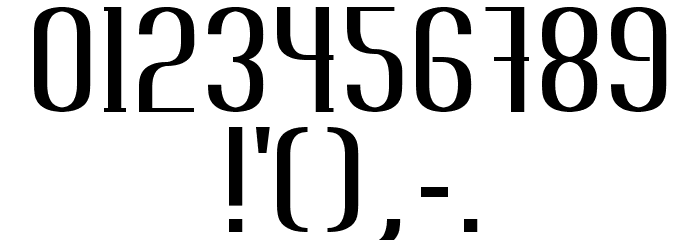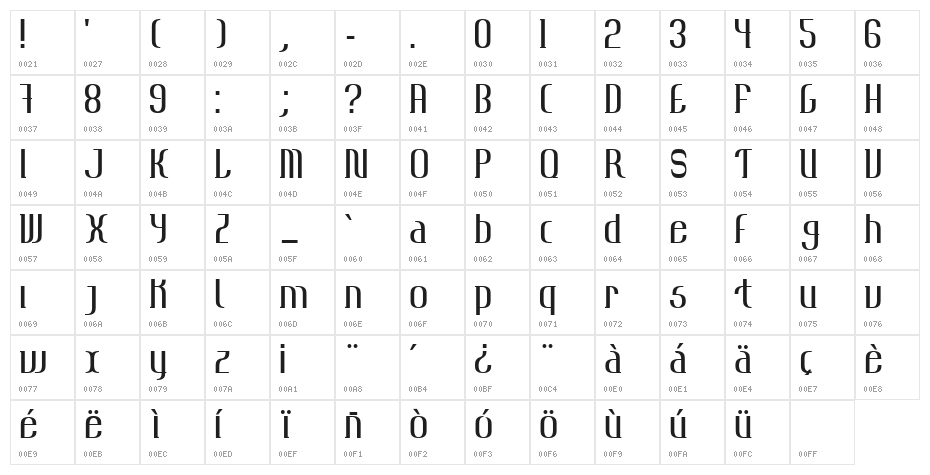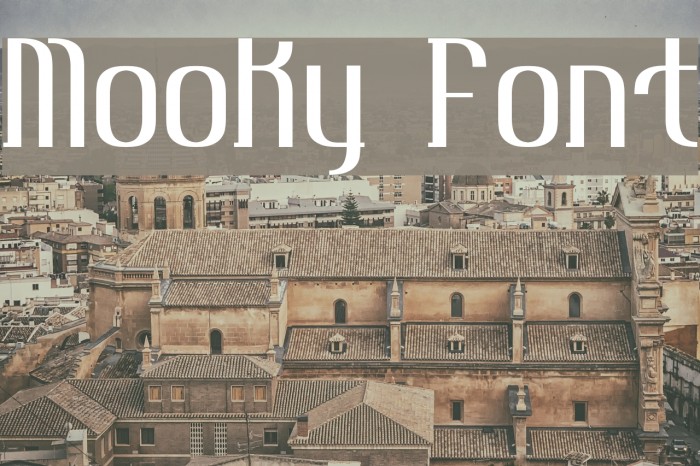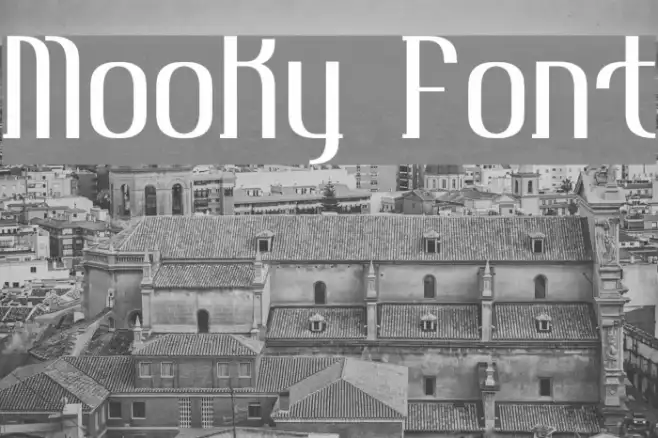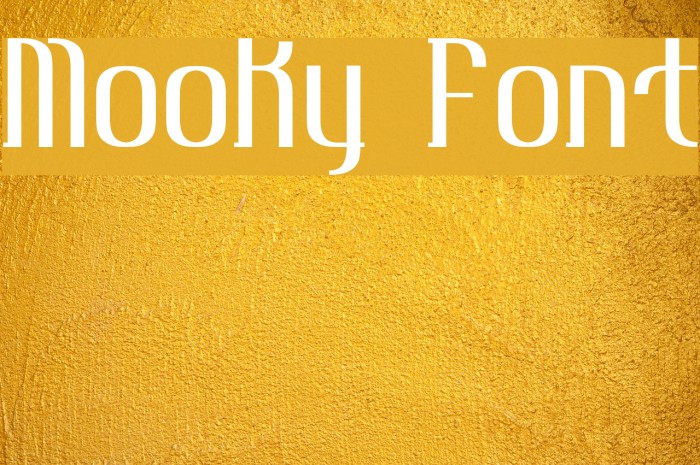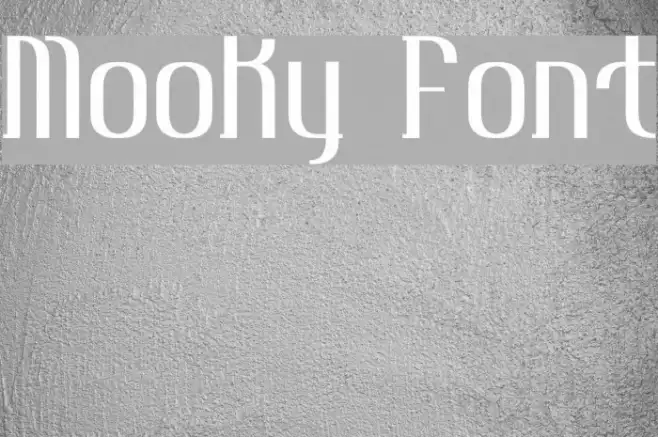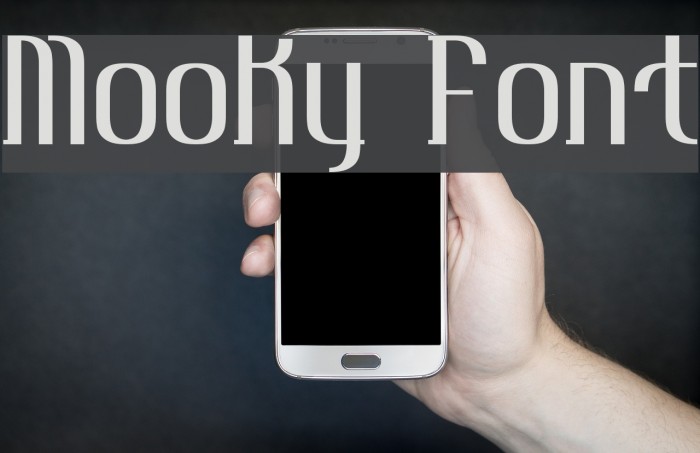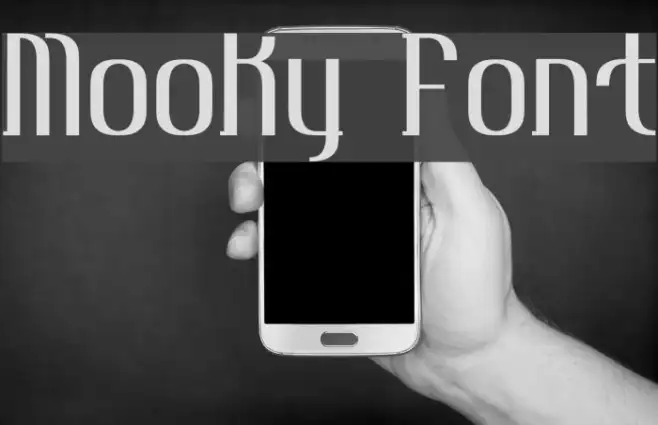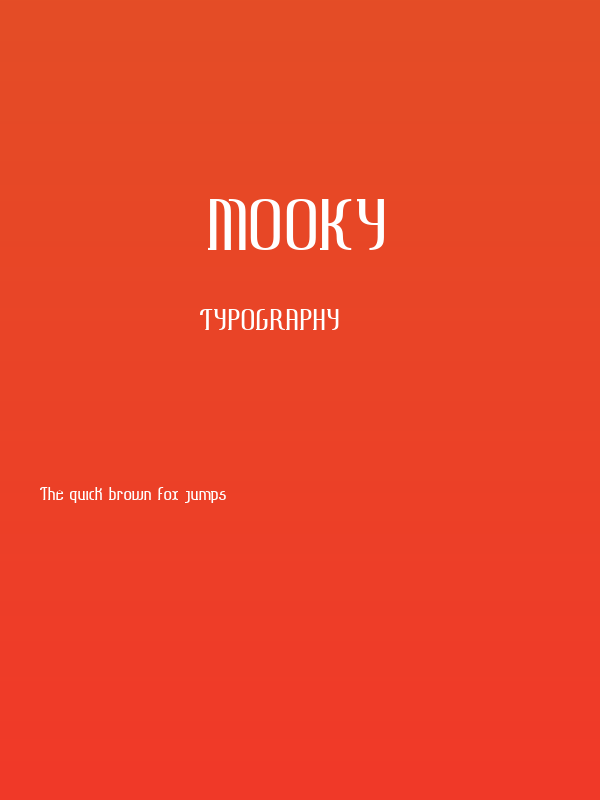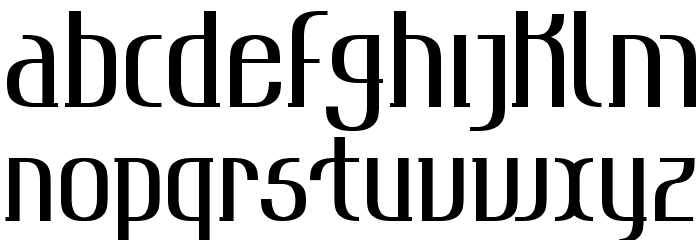
Mooky Font
Mooky Description
This font features a modern and sleek design with a distinct geometric influence. The characters are tall and narrow, giving it an elegant and sophisticated appearance. The uppercase letters exhibit a consistent height, while the lowercase letters maintain a uniform baseline, enhancing readability. The numerals are well-proportioned, aligning seamlessly with the overall style. Special characters are crafted with precision, adding to the font's versatility. The clean lines and minimalistic approach make it suitable for contemporary design projects.
| Proposed Projects | Ideal for branding, editorial design, and digital interfaces where a modern and sophisticated look is desired. |